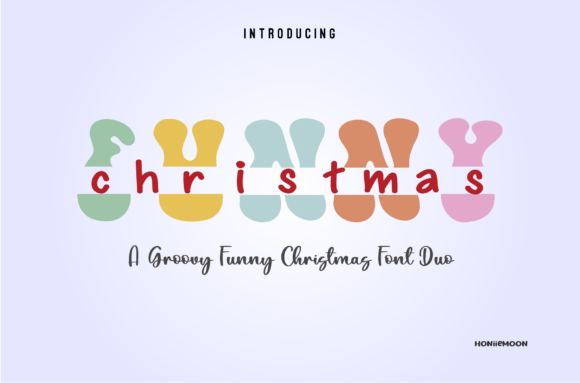
Looking for the perfect font to add a festive touch to your Christmas cards and labels? Look no further than Funny Christmas Duo Font! Created by Honiiemoon, this font family is a delightful combination of a display font and a handwritten sans font.
With Funny Christmas, your designs will instantly become cool, fun, and full of holiday cheer. This font duo is not only cute but also jolly, capturing the essence of the Christmas spirit.
Unleash your imagination and let Funny Christmas take your creative ideas to the next level. Its vibrant colors and bold style will bring life to your projects, making them stand out from the crowd. Whether you're designing greeting cards, labels, or even party invitations, this font will add that extra touch of magic.
But why settle for ordinary fonts when you can have something extraordinary? Funny Christmas Duo Font offers a unique and eye-catching aesthetic that will captivate your audience. It's the perfect choice for those who want to make a lasting impression with their holiday designs.
Get ready to amaze your friends, family, and customers with stunning Christmas cards and labels that truly stand out. Funny Christmas Duo Font is the key to turning your ideas into unforgettable visual masterpieces. Embrace the magic of the season and let this font be your creative companion.